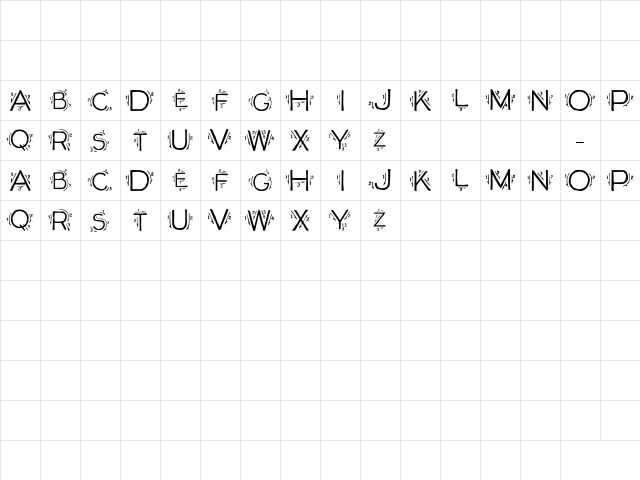
Single Stroke Regular
Design Context for Single Stroke Typeface
Single Stroke offers clean, dependable letterforms without strong stylistic allegiance, making it a practical choice for designers who need flexibility.